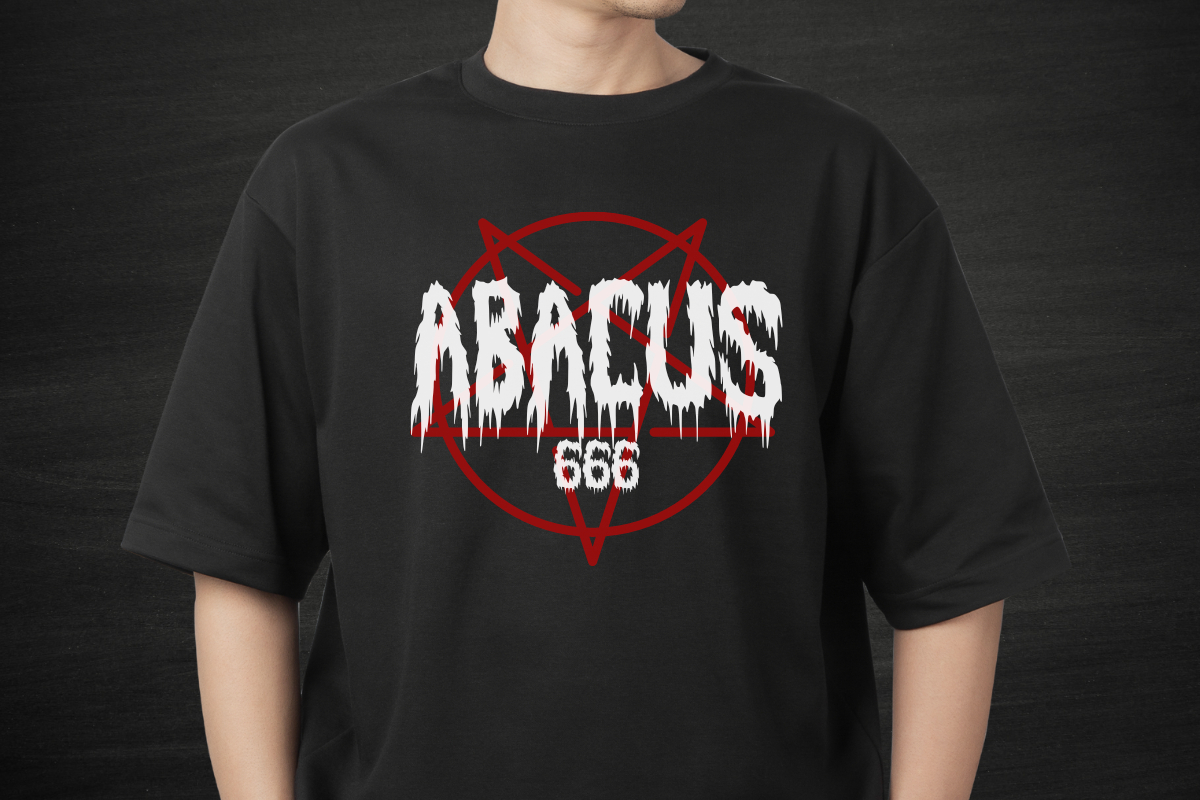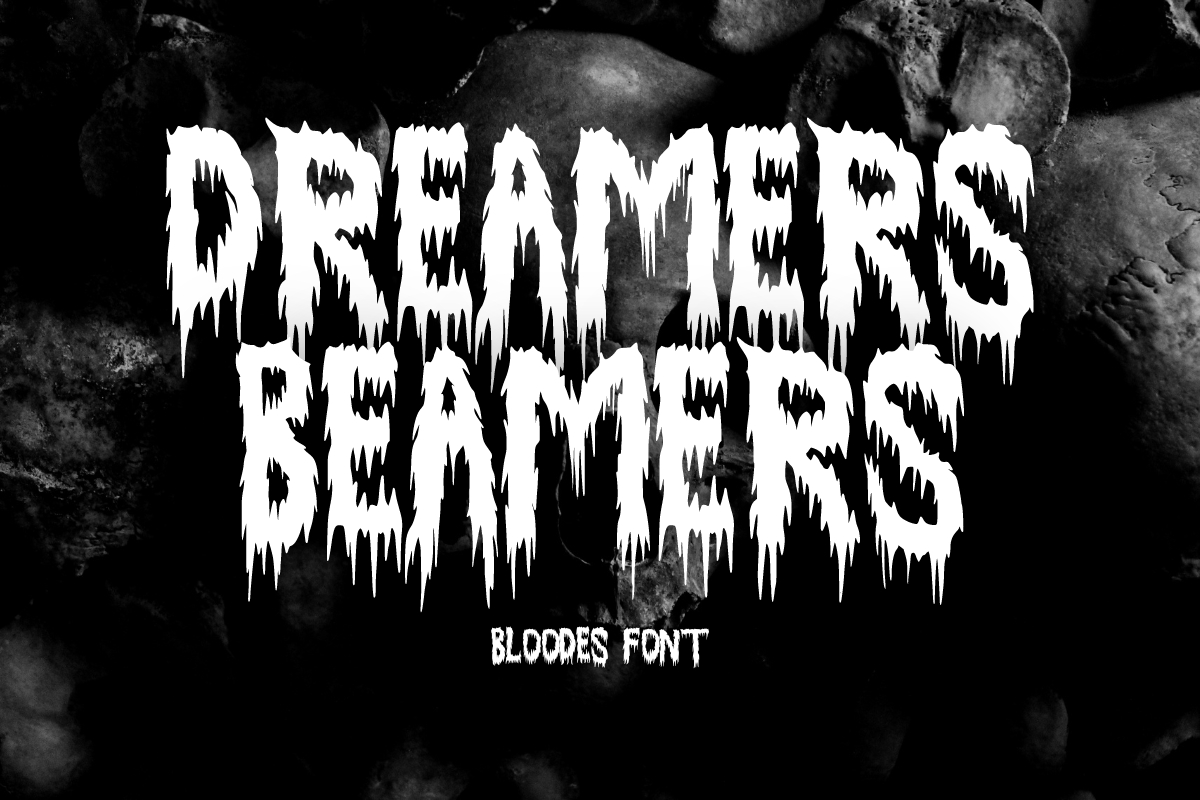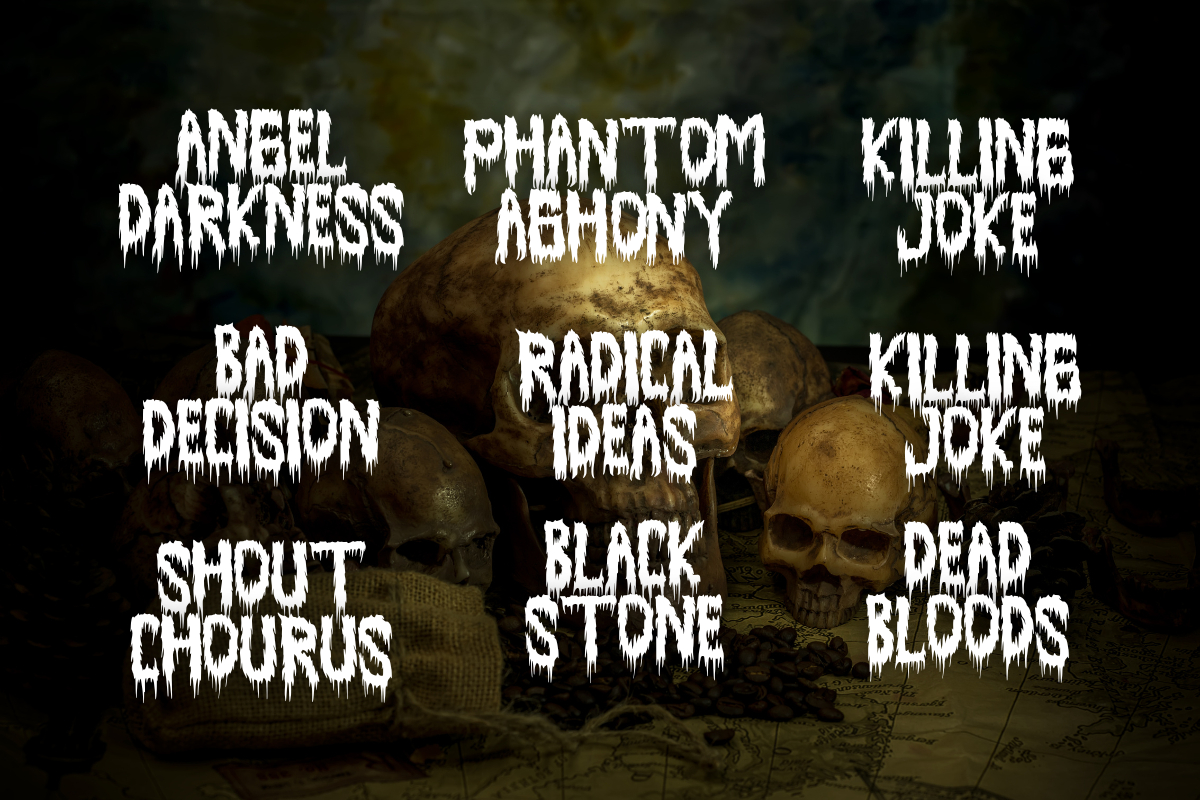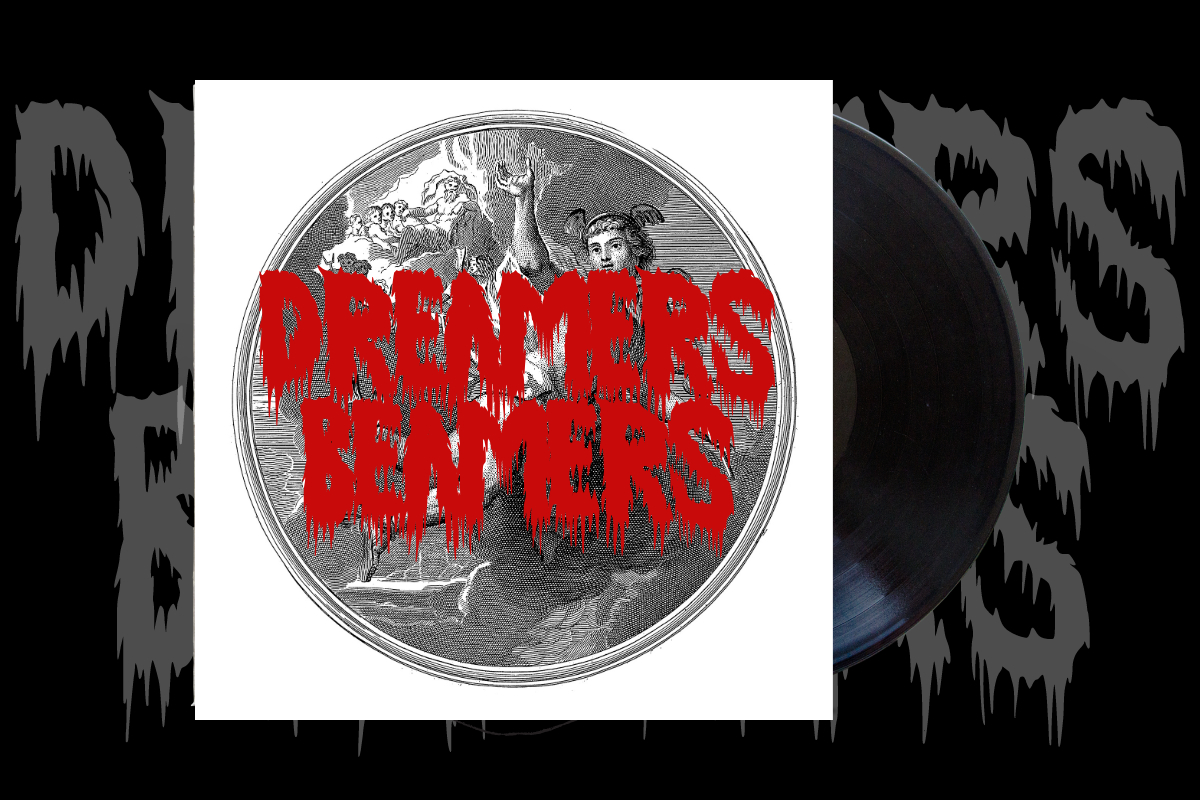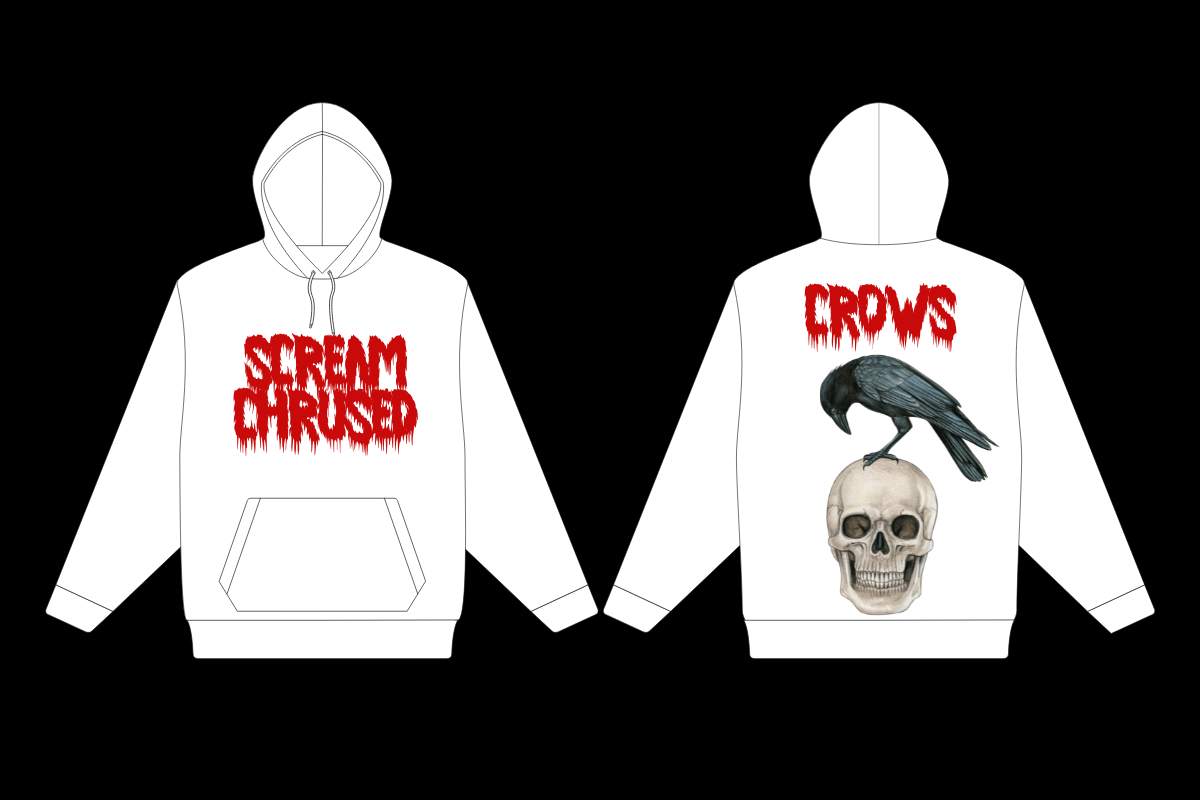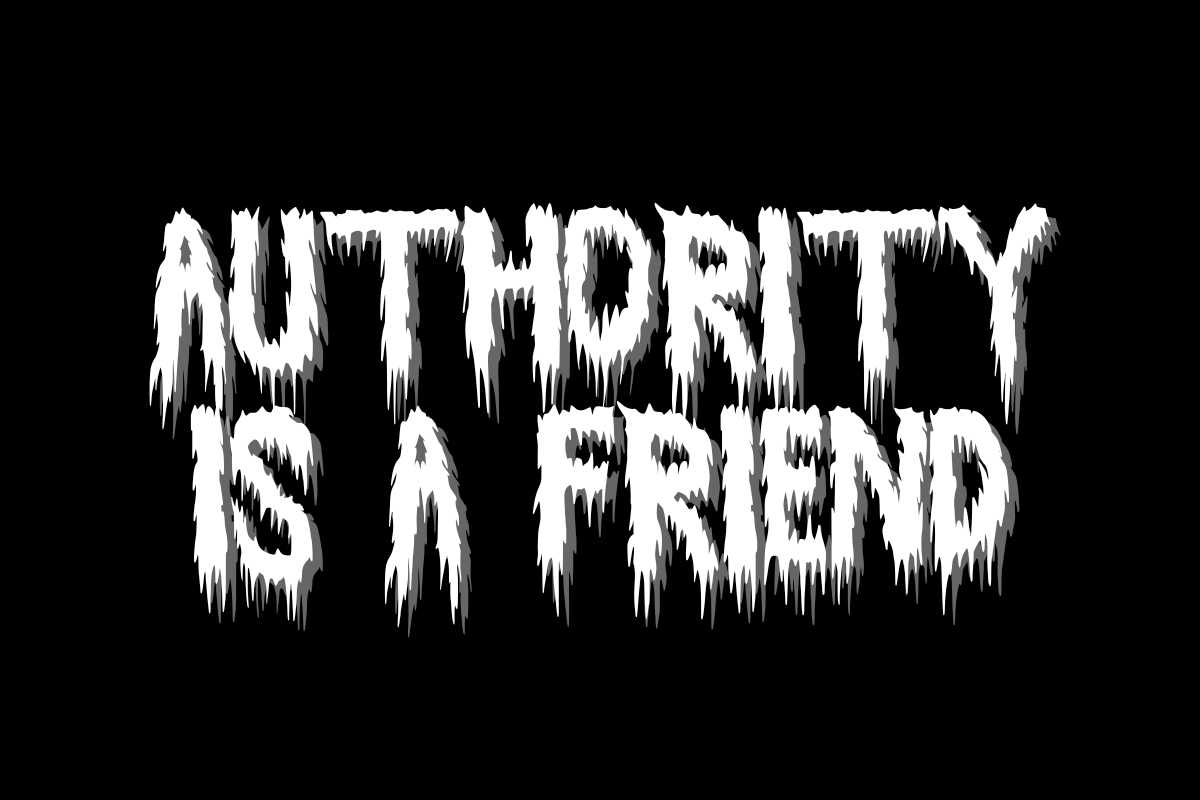
Bloodes Font
About Bloodes Font
Blackletter font with black metal hand drawn style. This font is cool for merchandise, t-shirts, stickers, apparel businesses, the black metal industry, band logos, and many other ideas.